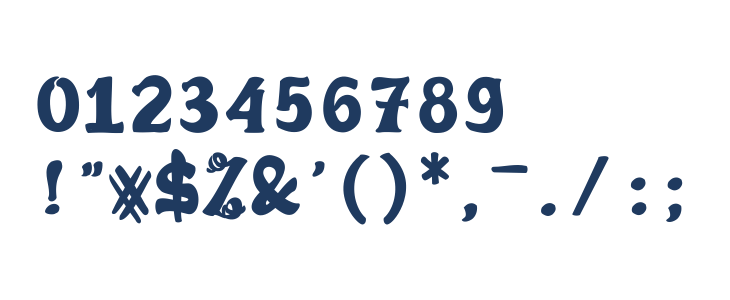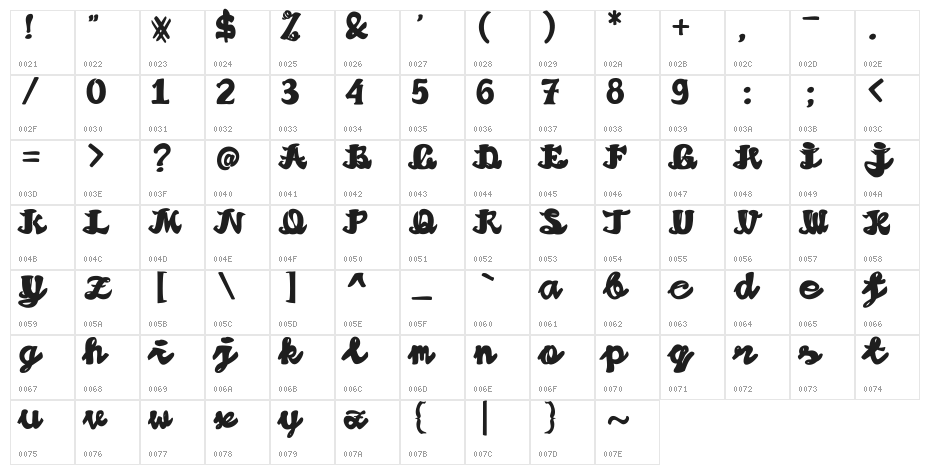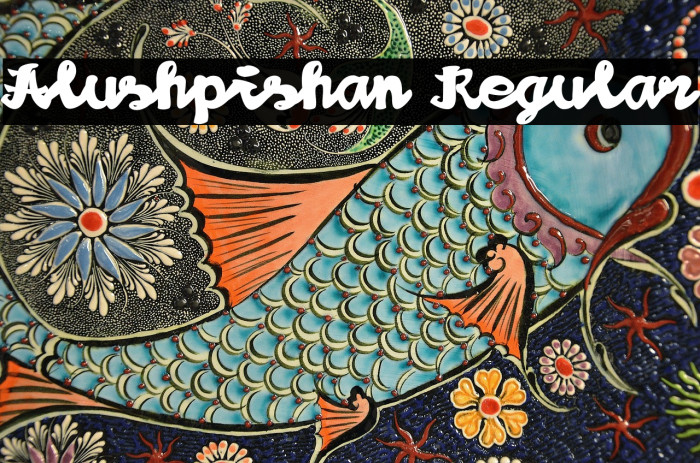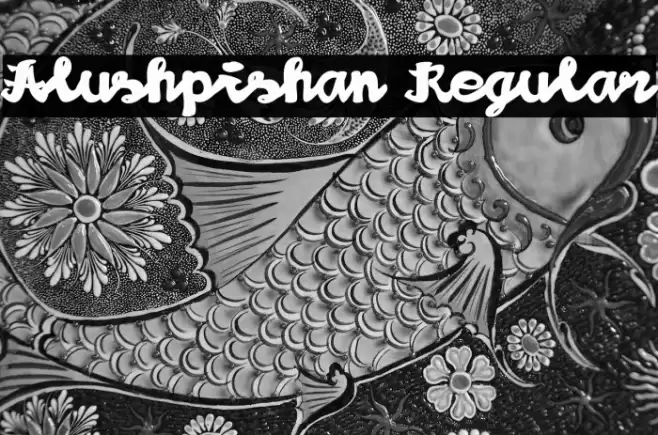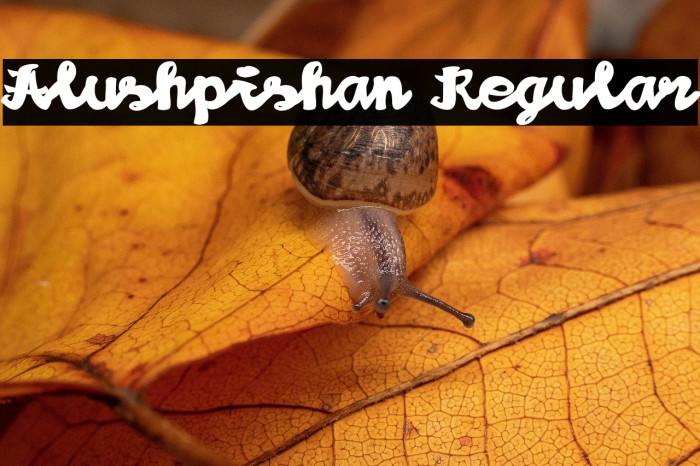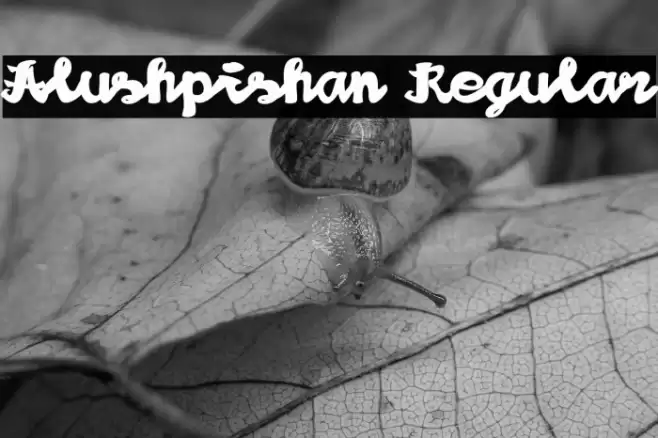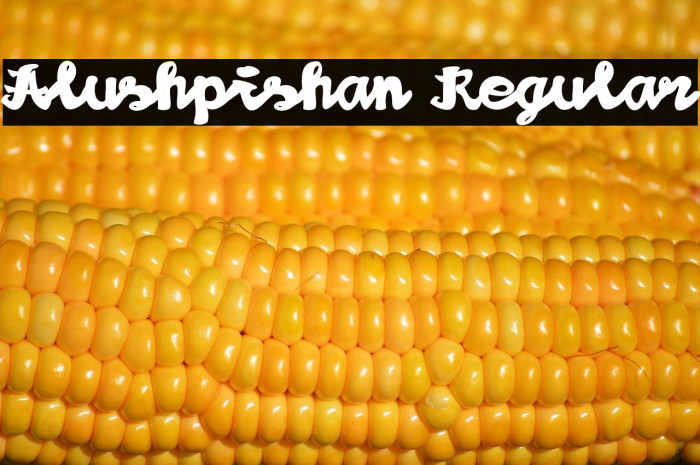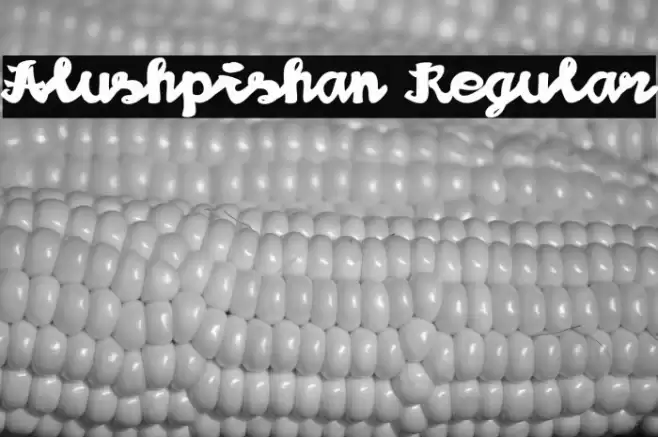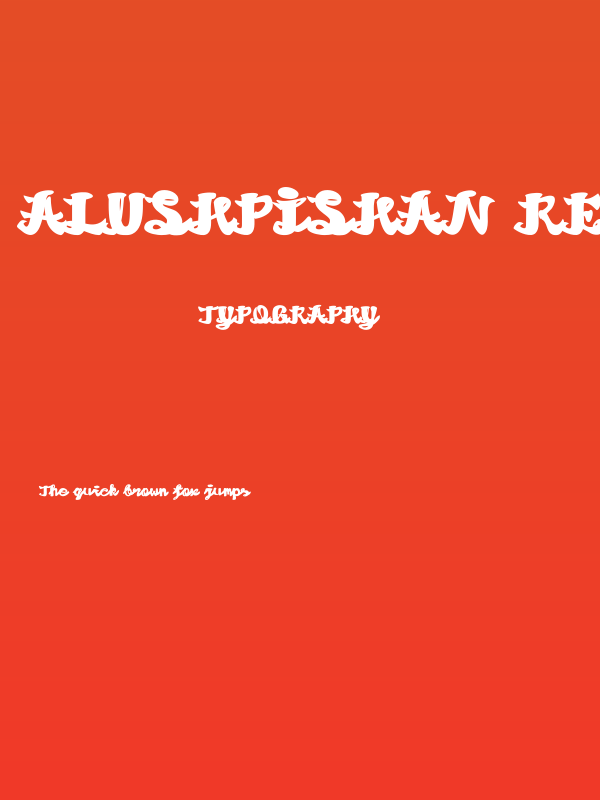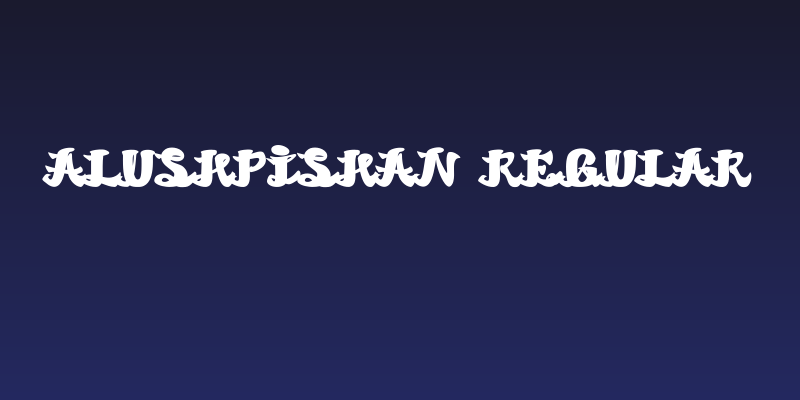
Alushpishan Regular Font
Alushpishan Regular Description
This font features a bold and playful style with a strong decorative flair. The characters are heavily stylized with exaggerated curves and loops, giving it a whimsical and artistic appearance. The uppercase letters are particularly ornate, with unique embellishments that make each letter stand out. The lowercase letters maintain the playful theme, with a consistent flow and rounded forms. Numbers and special characters are equally bold, ensuring a cohesive look across all elements. This font is ideal for creative projects that require a touch of fun and personality.
| Proposed Projects | Ideal for children's book covers, playful branding, event invitations, and artistic posters. |